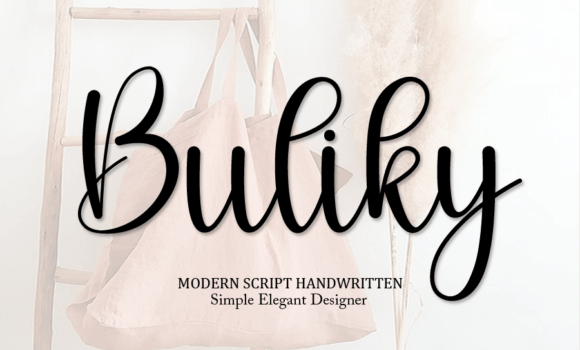
Buliky Font – Free Download Introduction to Buliky Font Buliky is a classic and simple handwritten script, created in a random and free style. 📸 Preview Gallery 5 images 📌 Product Name Buliky Font 👤 Author Abadi letter 📂 Category